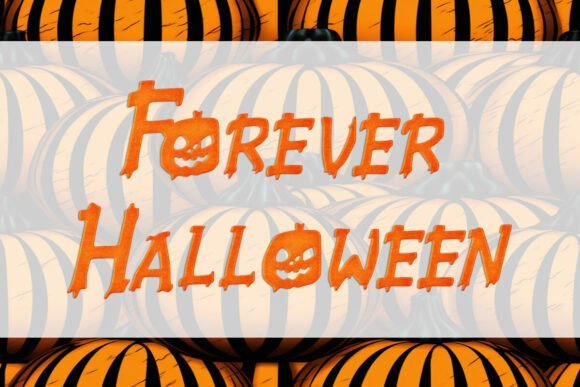
Get Ready to Cast a Spell with the Forever Halloween Font
You’re browsing through design inspiration on Pinterest, and suddenly, you stumble upon a captivating poster that catches your eye. The bold, playful letters leap out at you, and you can’t help but feel a spark of creativity. As a designer, you know that the right font can elevate your projects from ordinary to extraordinary. That’s where the Forever Halloween Font comes in – a versatile display font that lets you unleash your inner spooky spirit all year round.
This enchanting font is not just limited to Halloween-themed projects. Its unique edge and bold charm make it perfect for adding a touch of whimsy to t-shirts, stickers, and branding efforts. Whether you’re a seasoned designer or just starting out, the Forever Halloween Font is a valuable addition to your toolkit, offering endless possibilities for creative expression.
Forever Halloween Font Key Features
- Font Family: A unique, spooky-themed font designed to evoke the spirit of Halloween.
- Font Size: Designed to be highly legible at various sizes, from 8pt to 48pt, making it suitable for a range of applications.
- Unique Characteristics: Features intricate, hand-drawn details and a distressed texture to create a spooky, vintage atmosphere.
Forever Halloween Font Review
Overall, I found the “Forever Halloween Font” to be an interesting choice for those looking for a spooky or playful aesthetic. ✨ Here are some of its strengths and weaknesses.
- The font’s eclectic design makes it perfect for adding a whimsical touch to your designs.
- The variety of font styles and weights within the pack provides flexibility for different design applications.
- The font’s Halloween theme is well-executed, making it an ideal choice for seasonal designs or horror-themed projects.
- ⚠️ The font may be too distracting or overwhelming for designs that require a more subtle or professional look.
- ⚠️ Some of the font styles may be too similar, making it difficult to choose the right one for a specific design.
- ⚠️ The font may not be as legible at smaller sizes, which could impact its usability in certain design applications.
While the “Forever Halloween Font” is not perfect, it’s a great choice for designers looking to add a spooky or playful touch to their designs. With its unique design and variety of font styles, it’s sure to bring a smile to your clients’ faces. However, be mindful of its limitations and use it judiciously to avoid overwhelming your designs.
The Forever Halloween Font is perfect for creating spooky and eerie designs, such as:
Haunted house invitations
Spooky party decorations
Horror movie posters
Ghostly greeting cards
Remember to use the font in moderation and balance it with other design elements to create a visually appealing design.